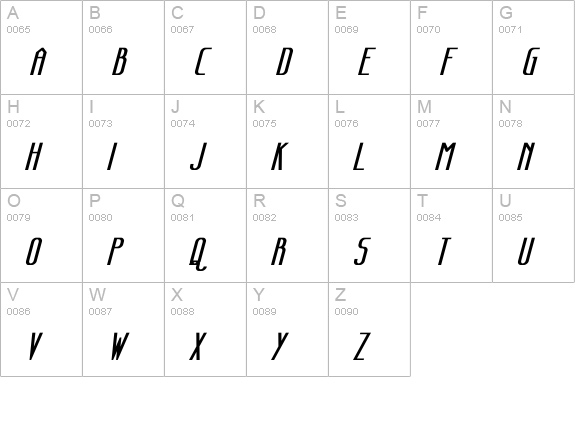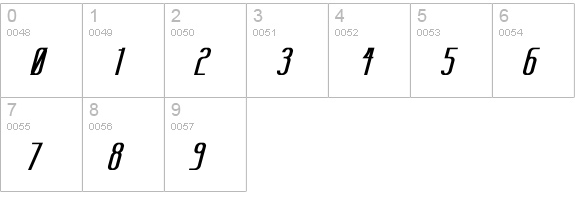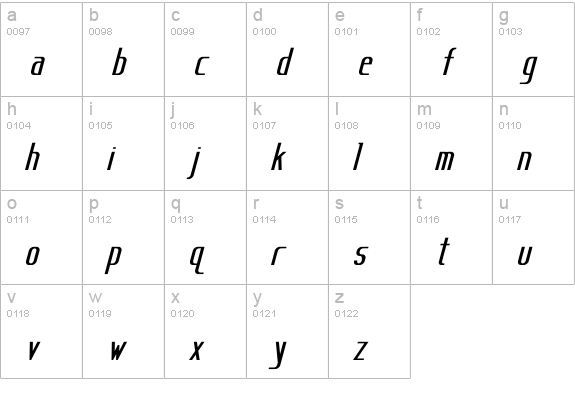
Sanity Bold Italic is a strong, high-contrast, italic variant in the Sanity typeface family \xE2\x80\x94 well suited to headlines, attention-grabbing titles, and strong calls-to-action.
Sanity Bold Italic font is a stunning display of elegance and sophistication. Its sleek and modern design beautifully combines boldness with a touch of italics, creating a unique and eye-catching aesthetic. Whether used for headings, titles, or any other creative project, this font effortlessly commands attention and adds a touch of bold character to any design. The letterforms of Sanity Bold Italic are meticulously crafted, with each curve and stroke carefully considered to create a harmonious balance between strength and elegance. The bold weight adds a sense of confidence and impact, while the italicized slant adds a touch of dynamism and flair. One of the most exciting aspects of Sanity Bold Italic font is that it is freely available to download at FontsMarket.com. This means that designers, creatives, and enthusiasts alike can easily access and use this exceptional font in their projects without any cost. The freedom to use this font without any restrictions opens up a world of possibilities for designers to explore and create stunning visuals. Whether you're designing a sleek and modern website, a striking logo, or a captivating poster, Sanity Bold Italic font is the perfect choice to make a bold statement. Its versatility and unique design make it suitable for a wide range of applications, ensuring that your designs will stand out from the crowd. So why wait? Visit FontsMarket.com today and download Sanity Bold Italic font for free. Unleash your creativity and elevate your designs with this remarkable font that seamlessly blends boldness and elegance.